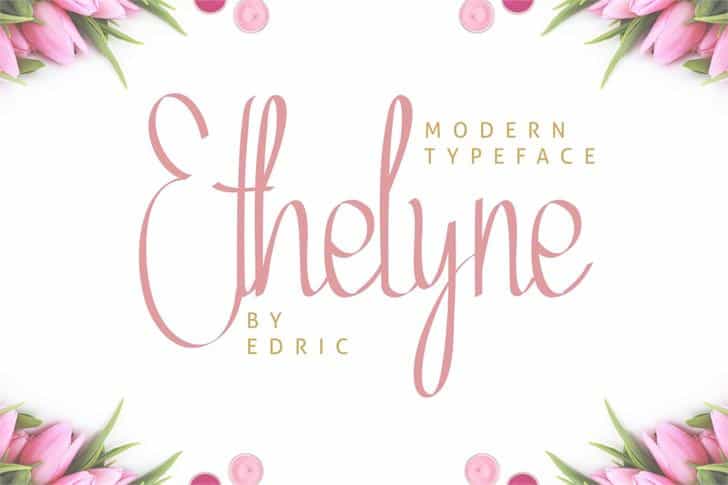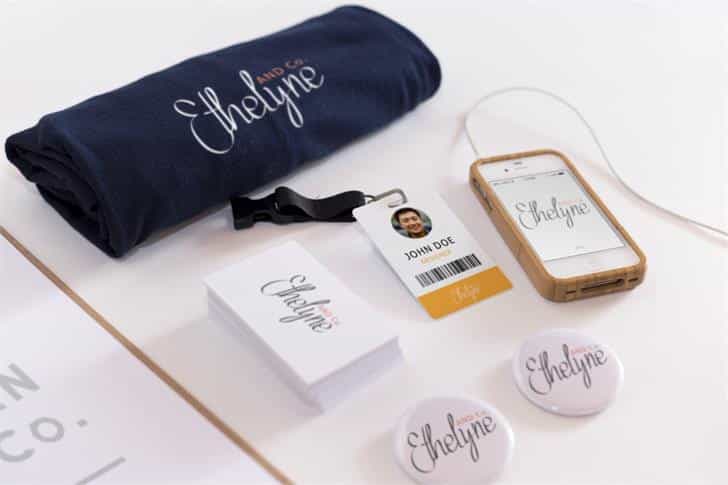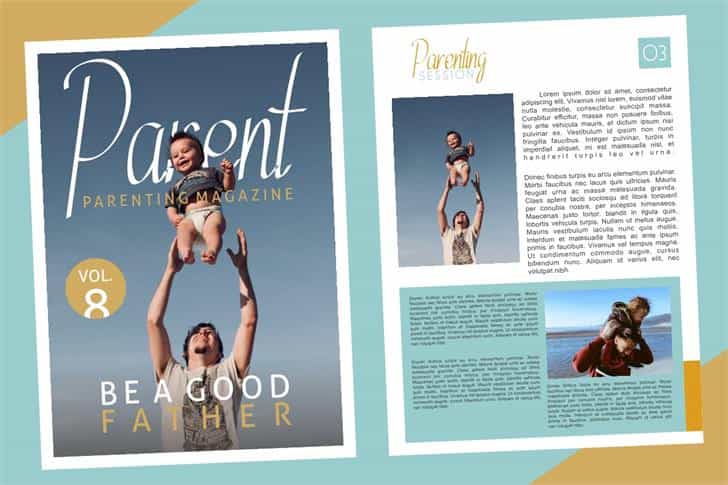
Ethelyne is the new modern script handwriting feminine type of font that can be used in any design. It has clean, sophistical and chic characters. It will be suitable for personal branding, logo, letterhead, business card, poster, flyer, brochure, banner, and sign, etc.